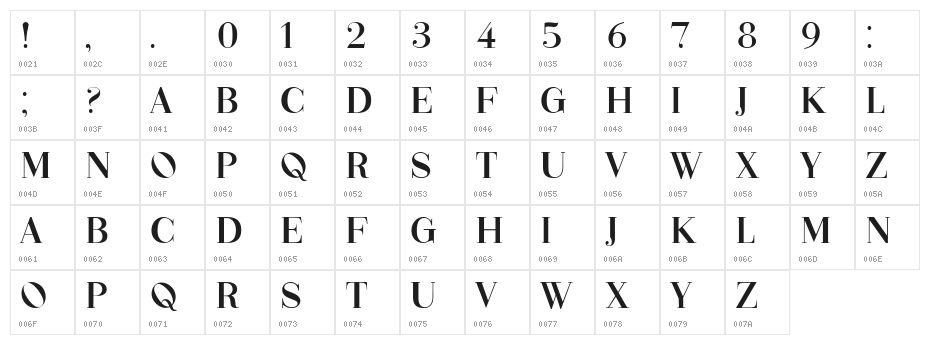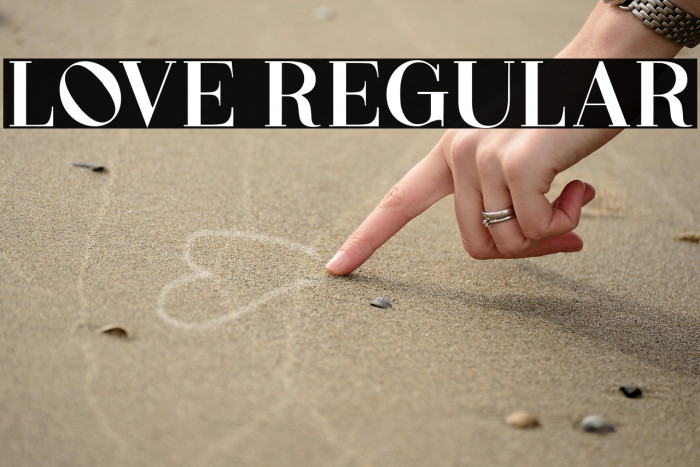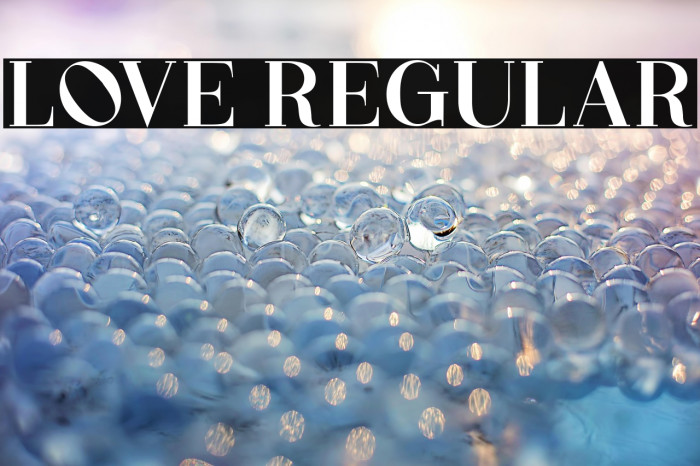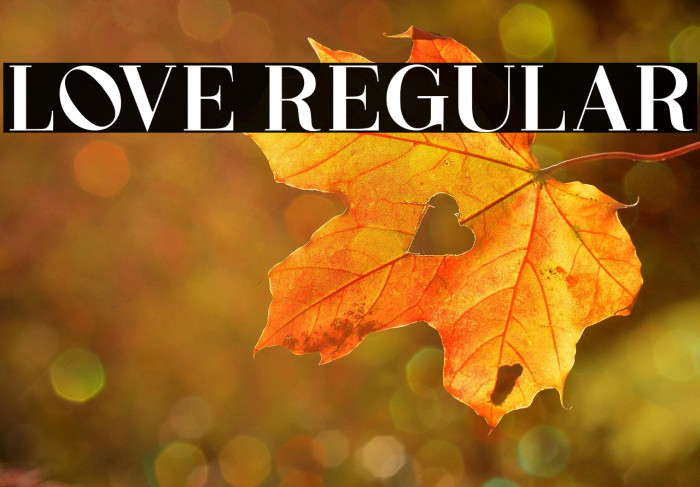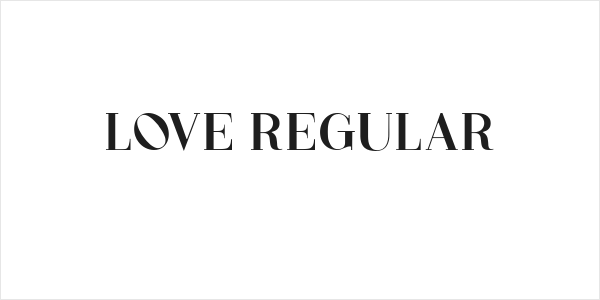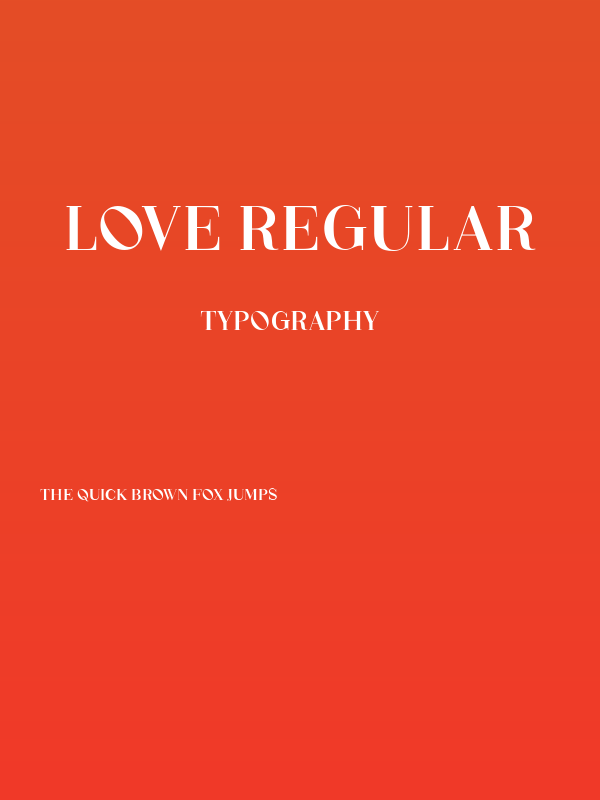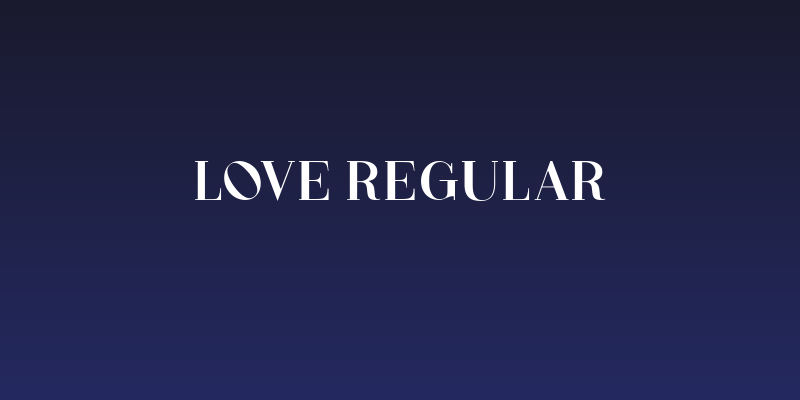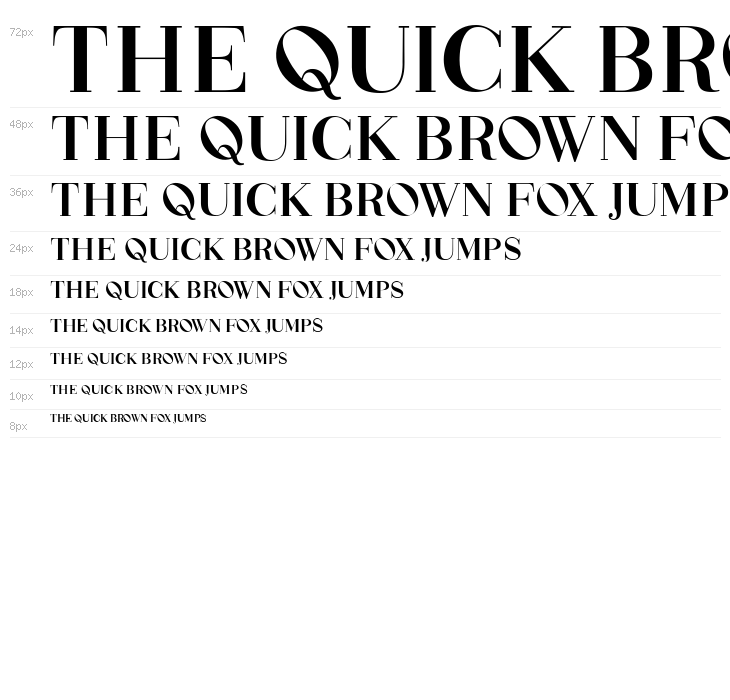
Love Regular Font
Love Regular Description
This font features a classic serif style with elegant, high-contrast strokes that create a sophisticated and timeless appearance. The letters are well-proportioned, with distinct serifs that add a touch of formality and tradition. The uppercase and lowercase characters maintain a consistent design, while the numerals and punctuation marks complement the overall aesthetic. The font's refined details make it suitable for projects that require a touch of elegance and professionalism.
| Proposed Projects | Ideal for use in formal invitations, editorial design, luxury branding, and high-end packaging. |